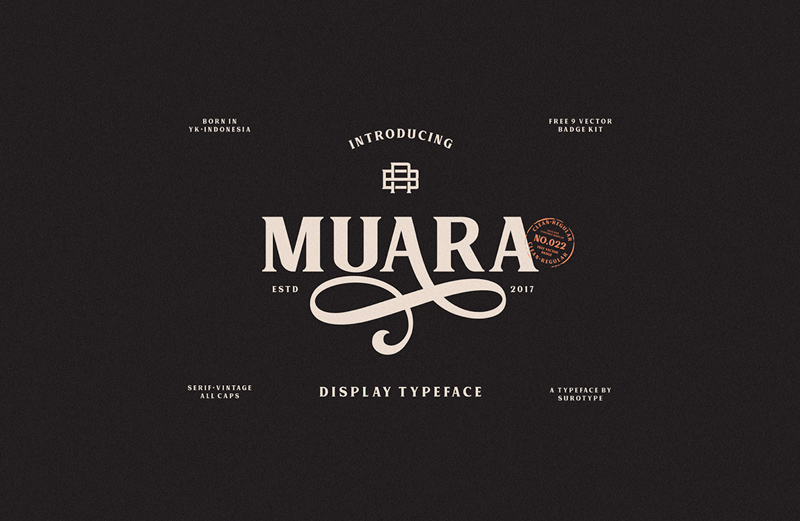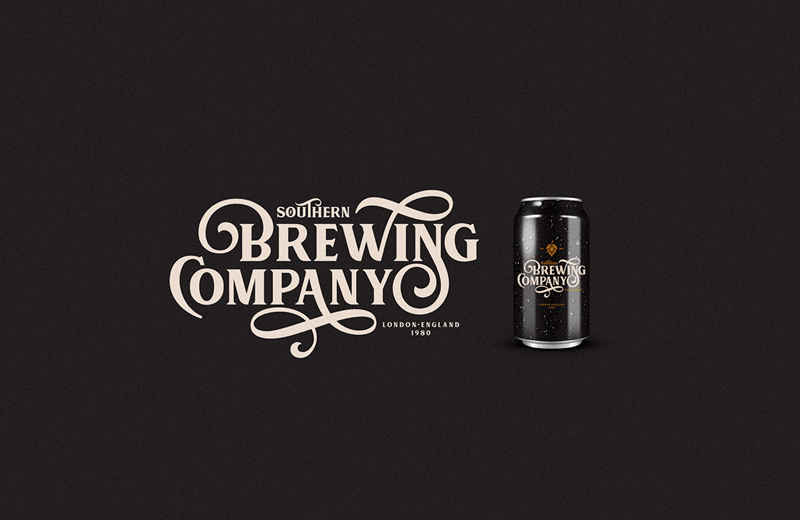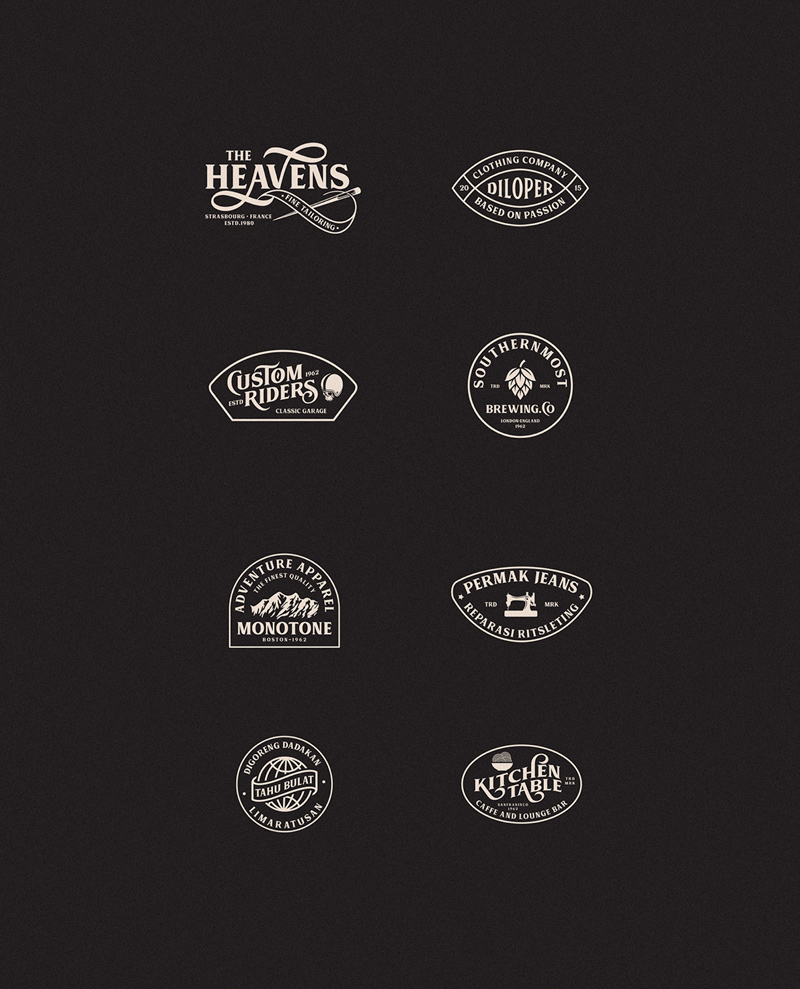
Muara Font
Muara is a vintage display typeface with a classic taste that you can use in your upcoming branding design projects. Thanks to Adil Budianto for sharing this resource.
A display typeface classic taste, very suitable as to make a design choice for books, magazines, packaging, branding, signage and more other creative project. Allcaps characters, with over 330 glyphs MUARA’s also has alternative characters such as Stylis…